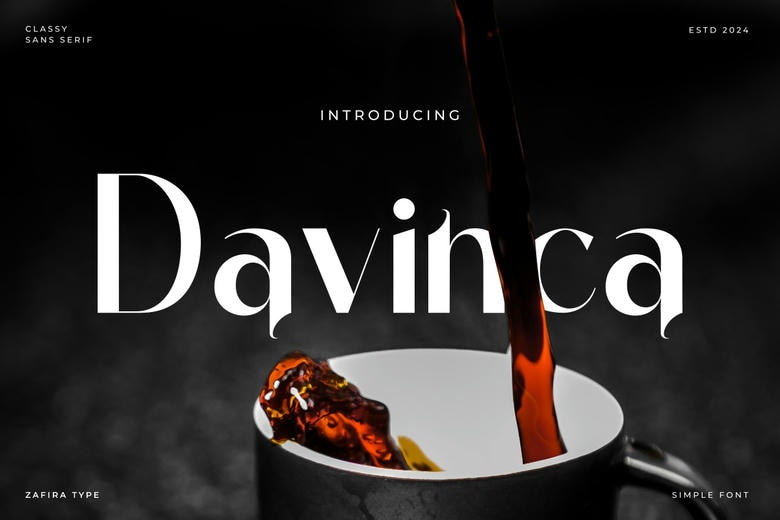
Davinca is a well-designed sans serif typeface. Its style is professional and sophisticated and makes it the right choice in the wide range of design projects which may include both powerful branding and involving editorial assignments.
All the characters of Davinca are carefully designed in terms of proportion and readability so that it can be a tasteful blend of beauty and functionality. With crisp, delineated lines and flowing shapes, Davinca adds the element of modern elegance to any design application and give it the irresistible charm.
Davinca Sans Serif Font